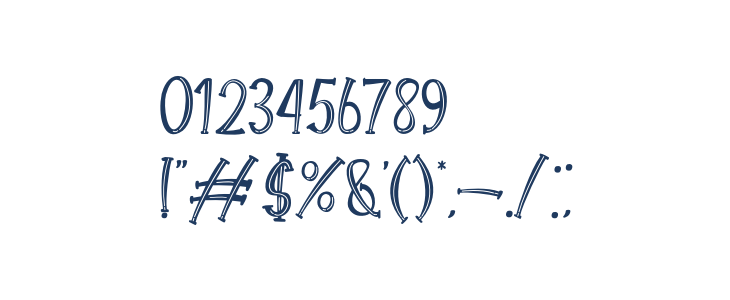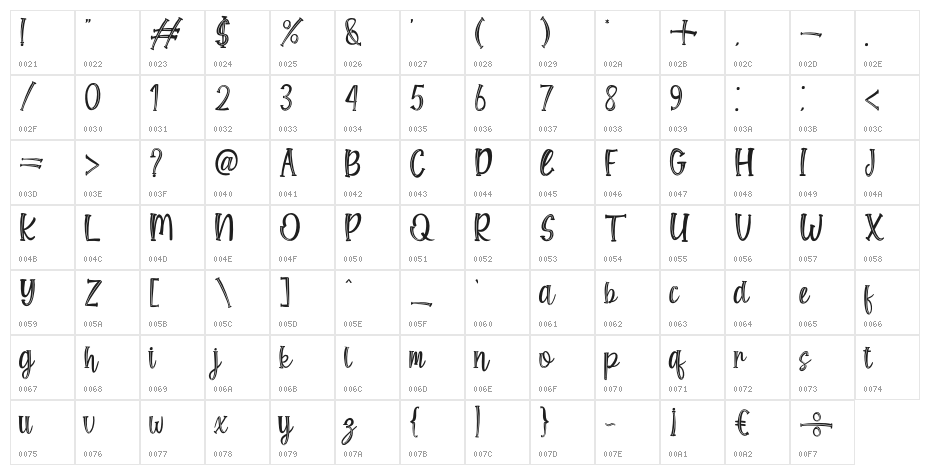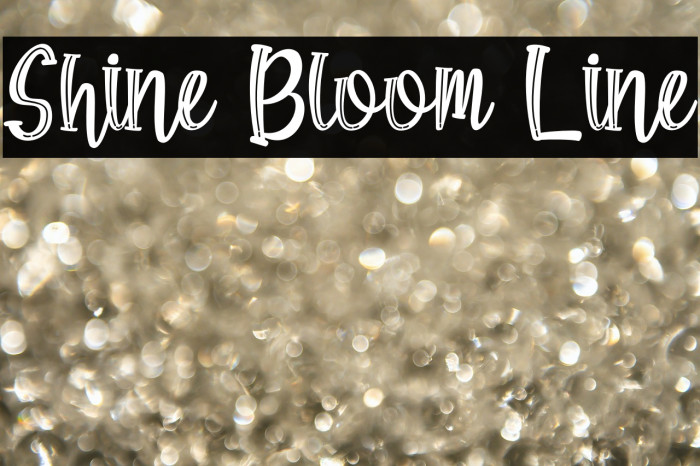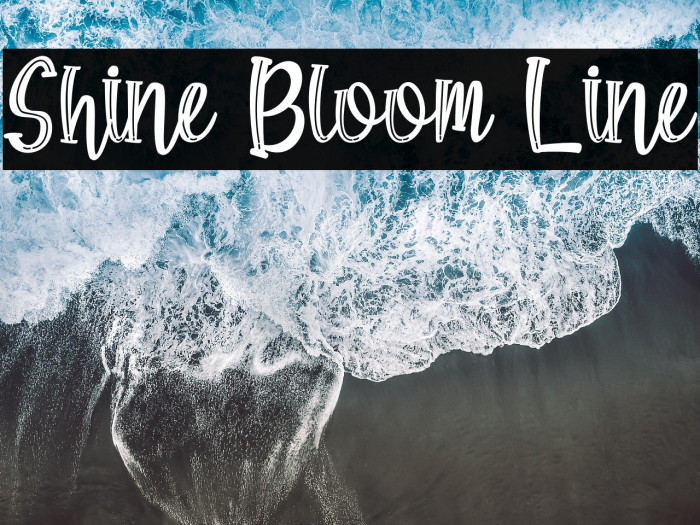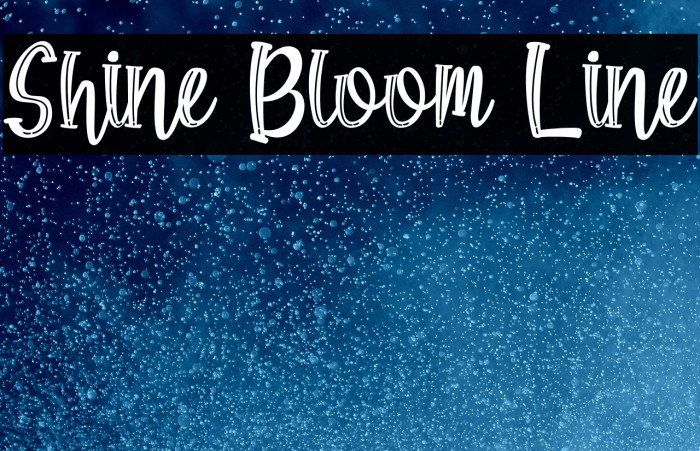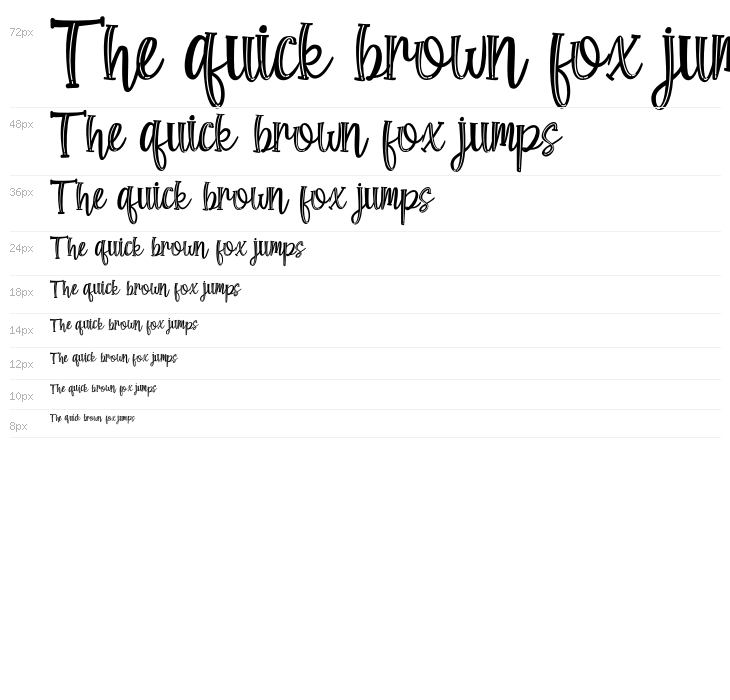
Shine Bloom Line Font
Shine Bloom Line Description
This font features a playful and whimsical style, characterized by its bold, hand-drawn appearance. The uppercase letters are tall and slightly narrow, with exaggerated serifs that add a touch of elegance. The lowercase letters maintain a consistent flow, with some characters featuring loops and curls that enhance its decorative nature. The numbers are bold and clear, matching the overall playful aesthetic. Special characters are creatively designed, maintaining the font's unique style. This font is perfect for projects that require a fun and engaging look.
Proposed ProjectsIdeal for children's books, playful branding, greeting cards, and creative posters.